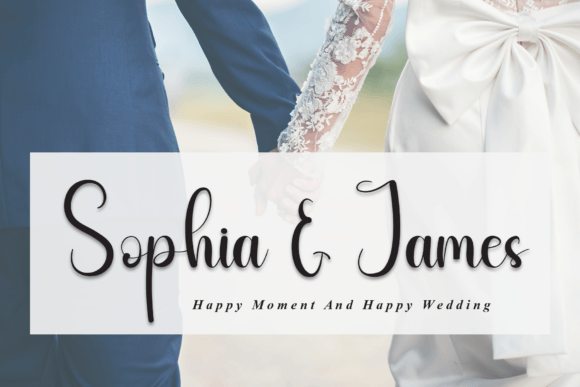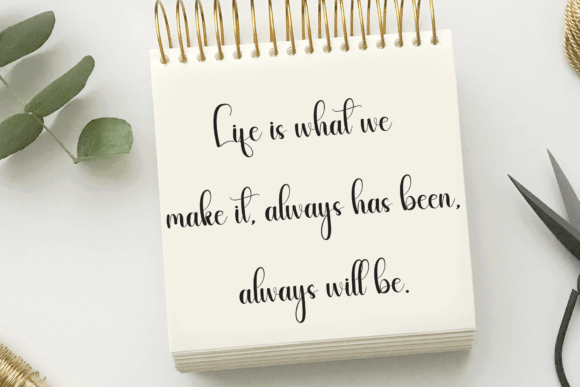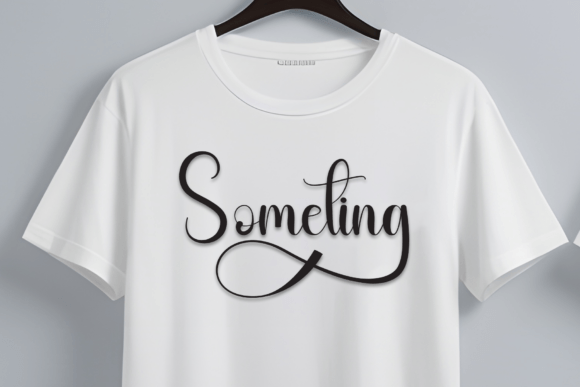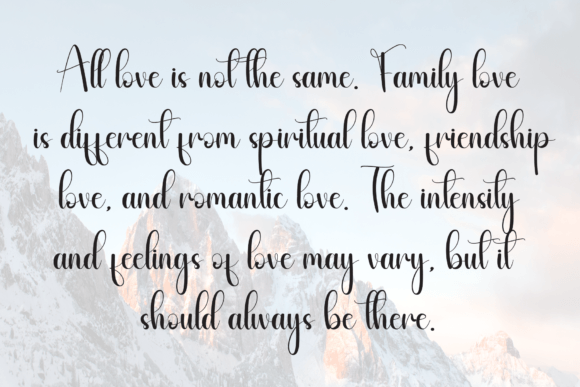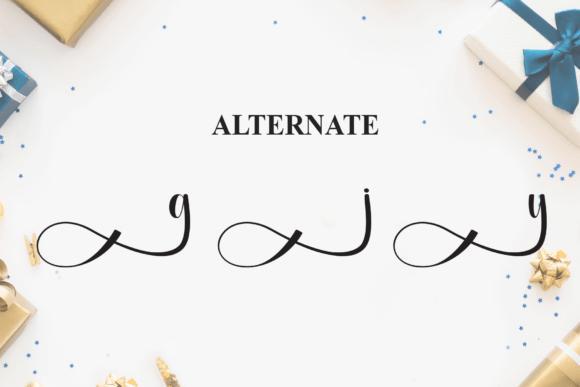
Introducing Birthday Font: The Elegant and Timeless Choice for Your Designs
Are you looking for a font that can add a touch of elegance and sophistication to your designs? Look no further than Birthday Font! This beautiful, flowing handwritten font is described by its elegant touch, making it perfect for your favorite projects. With its incredibly distinct and timeless style, Birthday Font is sure to fall in love with its charm and inspire you to create spectacular designs!
The Characteristics of Birthday Font
So, what makes Birthday Font so special? For starters, its flowing handwritten style gives it a unique and organic feel that’s perfect for creating designs that are both personal and professional. The elegant touch of this font is unmistakable, with smooth lines and curves that flow effortlessly across the page. Whether you’re creating a birthday card, a wedding invitation, or a brand logo, Birthday Font is the perfect choice for adding a touch of sophistication and style.
The Benefits of Using Birthday Font
There are many benefits to using Birthday Font in your designs. For one, its timeless style ensures that your designs will never go out of fashion. Unlike trendy fonts that may look great now but become dated in a few years, Birthday Font is a classic choice that will stand the test of time. Additionally, its elegant touch makes it perfect for creating designs that are both luxurious and refined. Whether you’re working on a high-end brand campaign or a special occasion project, Birthday Font is the perfect choice for adding a touch of sophistication and glamour.
How to Use Birthday Font in Your Designs
Birthday Font is perfect for designers and crafters alike! Whether you’re creating professional designs for clients or working on personal projects, this font is sure to inspire you to create something truly special. Designers will love the font’s versatility and flexibility, making it perfect for a wide range of design applications, from branding and advertising to packaging and web design. Crafters, meanwhile, will adore the font’s whimsical and personal touch, making it perfect for creating handmade cards, gift tags, and other DIY projects.
Tips and Tricks for Getting the Most Out of Birthday Font
To get the most out of Birthday Font, here are a few tips and tricks to keep in mind:
- Experiment with different sizes and colors to find the perfect combination for your design.
- Use Birthday Font in combination with other fonts to create a unique and eye-catching design.
- Don’t be afraid to get creative and try out new and unusual design ideas.
- Use Birthday Font to add a personal touch to your designs, making them more special and meaningful.
In conclusion, Birthday Font is a truly special font that’s perfect for designers and crafters alike. With its elegant and flowing handwritten style, timeless charm, and versatility, this font is sure to inspire you to create spectacular designs that will leave a lasting impression. Whether you’re working on a professional project or a personal DIY endeavor, Birthday Font is the perfect choice for adding a touch of sophistication and style. So why wait? Download Birthday Font today and start creating your own stunning designs!
Key Features of Birthday Font:
- Elegant and flowing handwritten style
- Timeless and classic design
- Perfect for a wide range of design applications
- Versatile and flexible for use in a variety of design projects